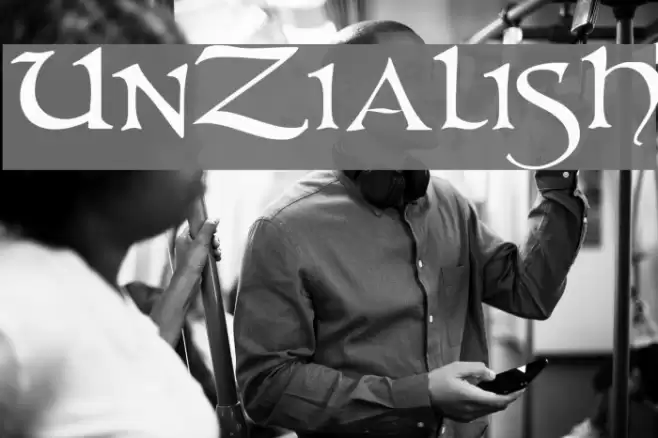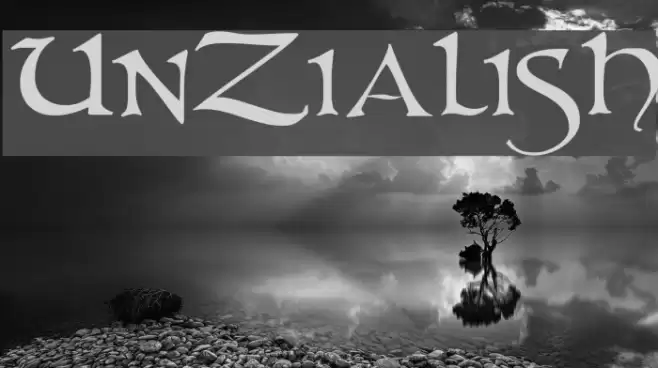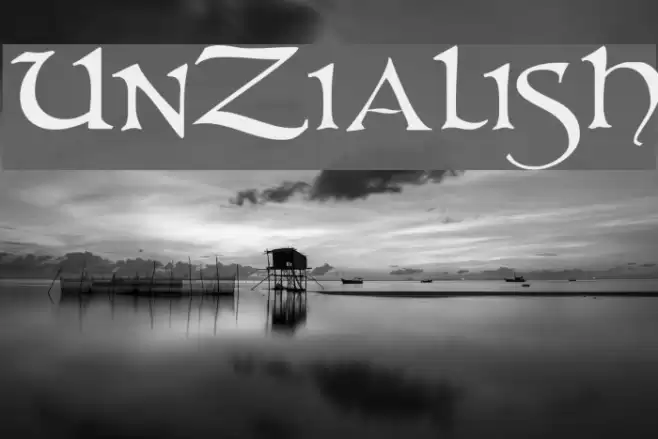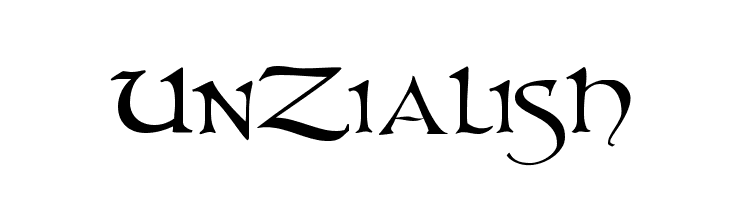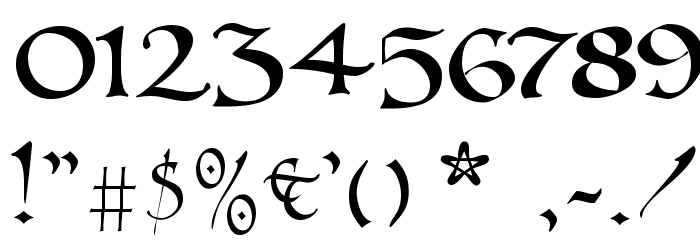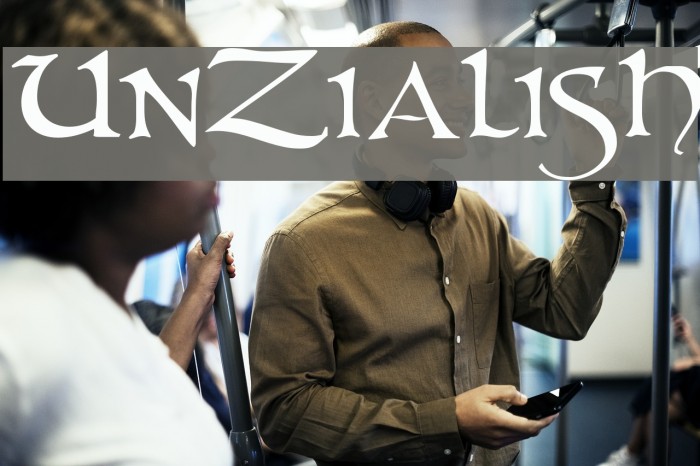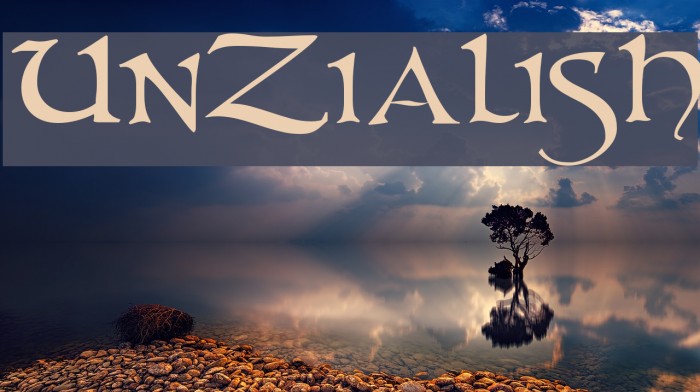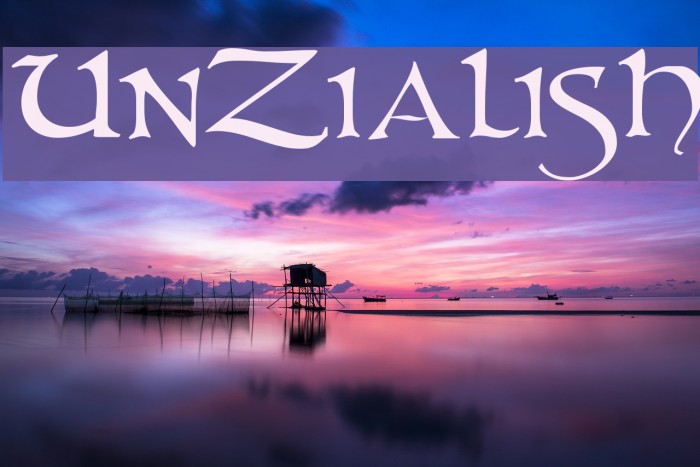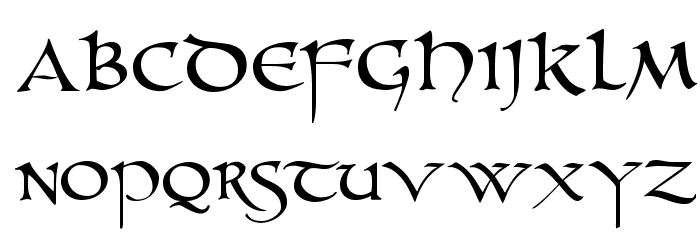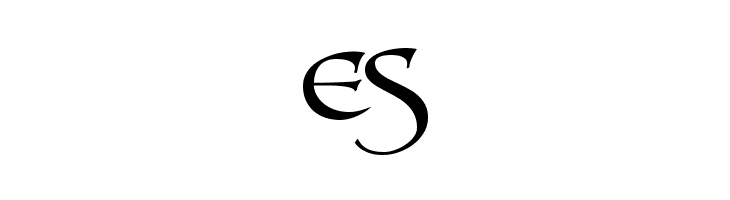
UnZialish Font
UnZialish Description
This font exudes a medieval and gothic charm, characterized by its sharp, angular strokes and intricate details. The uppercase letters are bold and commanding, with a distinct flair that suggests a historical or fantasy theme. The lowercase letters maintain the same stylistic elements, offering a cohesive look across different text cases. Numbers and special characters are designed with the same attention to detail, ensuring consistency throughout. The font's unique style makes it ideal for projects that require a touch of elegance and drama, such as fantasy book covers, themed event invitations, or historical reenactment materials.
A gothic, medieval-inspired font with sharp, angular strokes and intricate details from Gothic fonts.
- Proposed Projects: Ideal for fantasy book covers, themed event invitations, historical reenactment materials, and decorative signage.
- Use Case: Headlines, Logos, Decorative text